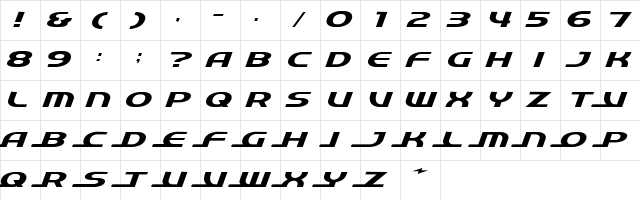
QuickExpress Regular
Design Context for QuickExpress
QuickExpress is a composed and adaptable typeface that performs quietly and consistently across a wide range of design contexts.